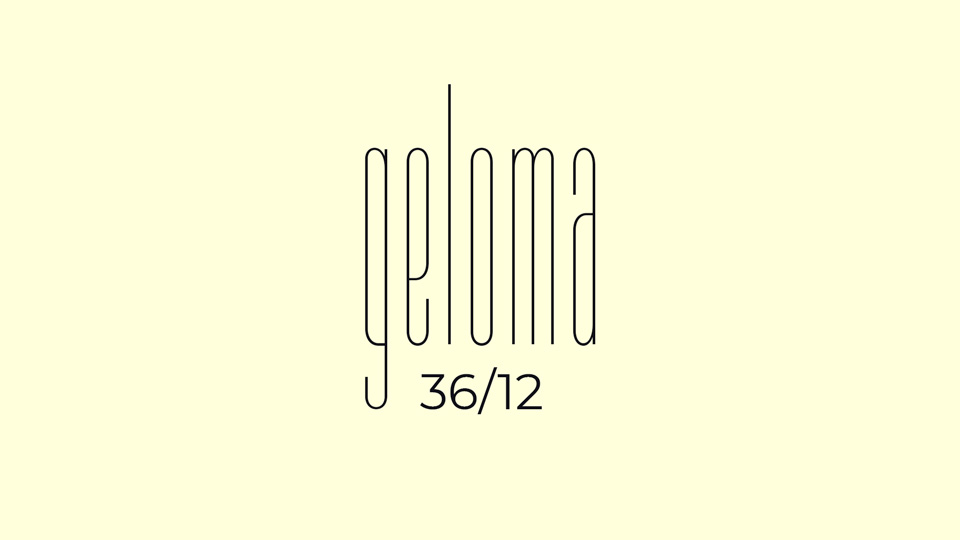
Download Geloma font, a sans serif typeface with long, thin letters that look almost like threads on a loom when set together.
Designer: Justin Penner